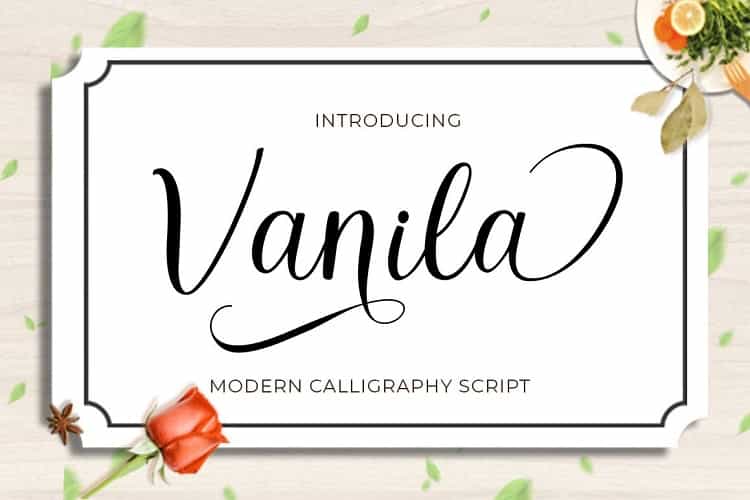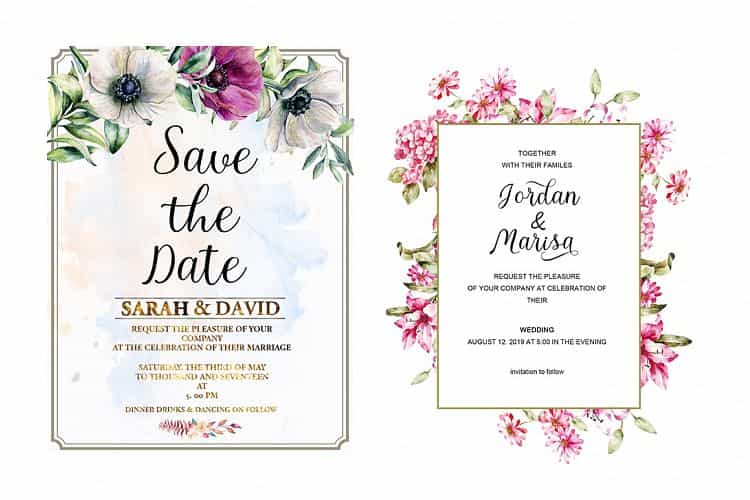
Vanila is a new contemporary font in the script style with an uneven baseline. Trendy and feminine style. Vanila looks beautiful on wedding invitations, thank you cards, quotes, greeting cards, logos, business cards and more.